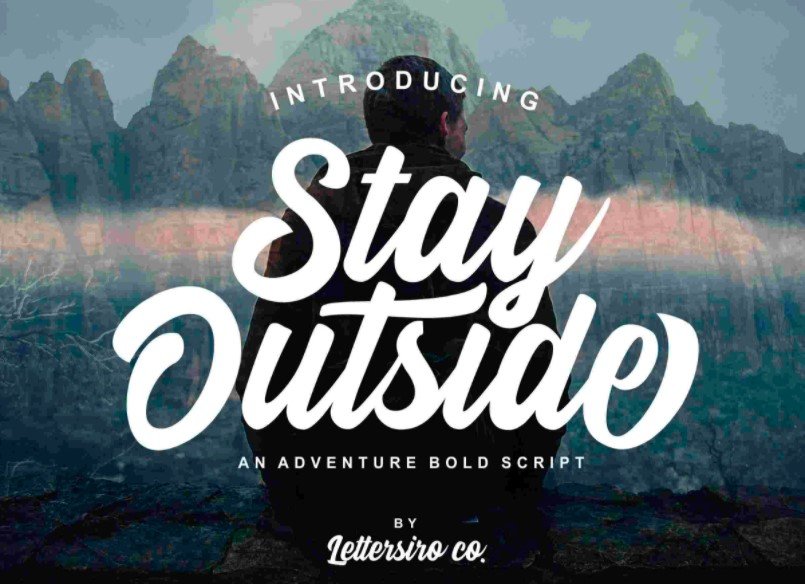
The font contains rich features and characteristics which is the features of premium typeface but available in this free font. The font was designed by
Introducing Stay Outside Scripted Font, a top choice among professional graphic designers. If you're new to graphic design and building a font collection, ensure this handwritten-style font is at the top of your list for its popularity and appeal.
The font contains rich features and characteristics which is the features of premium typeface but available in this free font. The font was designed by Lettersiro Co. that is the creative font foundry who designs this great typeface, and available for free download and creates stunning projects with this.
There are so many fans of this font in the world, you will also be the one. You can also use the font with the combination of ff din font for getting a more attractive look.
The Stay Outside Script Font is the brilliant and amazing good looking scripted typeface that gives natural-looking designs.